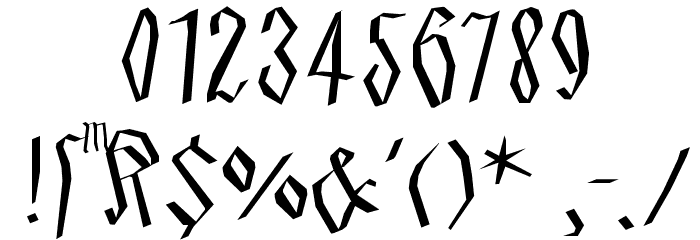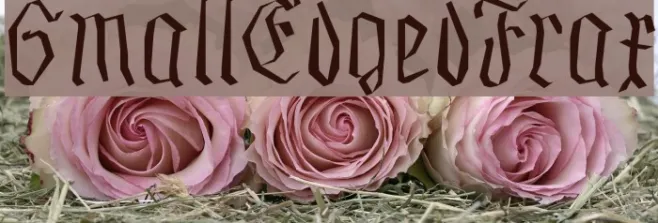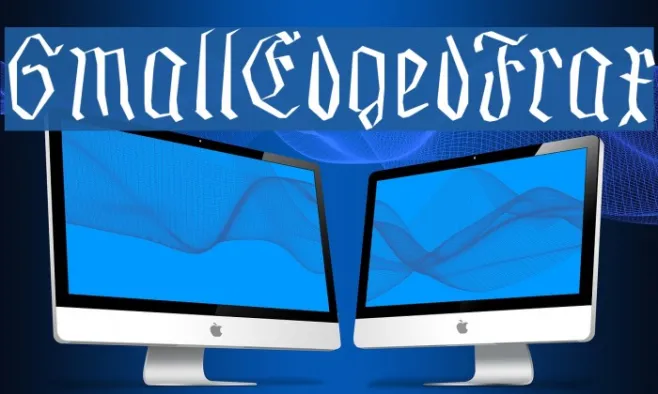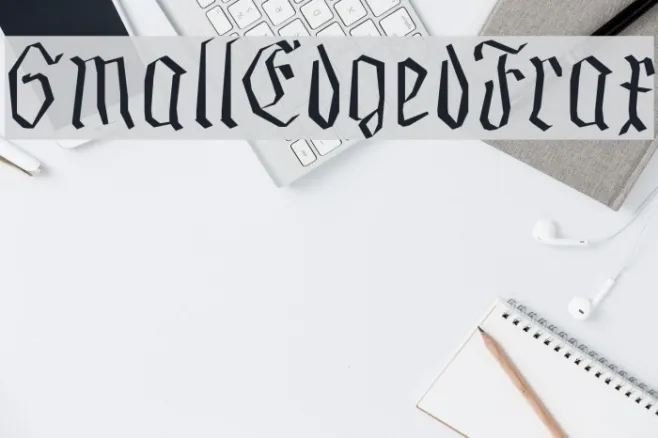
SmallEdgedFrax Font
This font features a distinct Gothic style with sharp, angular edges and a bold presence. The characters are intricately designed, showcasing a medieval aesthetic that is both decorative and striking. The uppercase letters exhibit a strong, commanding appearance, while the lowercase letters maintain the same stylistic elements with a slightly more subdued presence. Numbers and special characters are crafted with the same attention to detail, ensuring a cohesive look across all glyphs. The overall design is reminiscent of traditional Blackletter fonts, making it ideal for projects that require a historical or dramatic flair.
A bold, Gothic-style font with sharp, angular edges and a medieval aesthetic.
- Proposed Projects: Ideal for historical-themed designs, book covers, posters, and branding that requires a dramatic or vintage touch.
- Category: Blackletter
- Overall Style: Vintage
- Use Case: Headlines, Logos, Decorative text